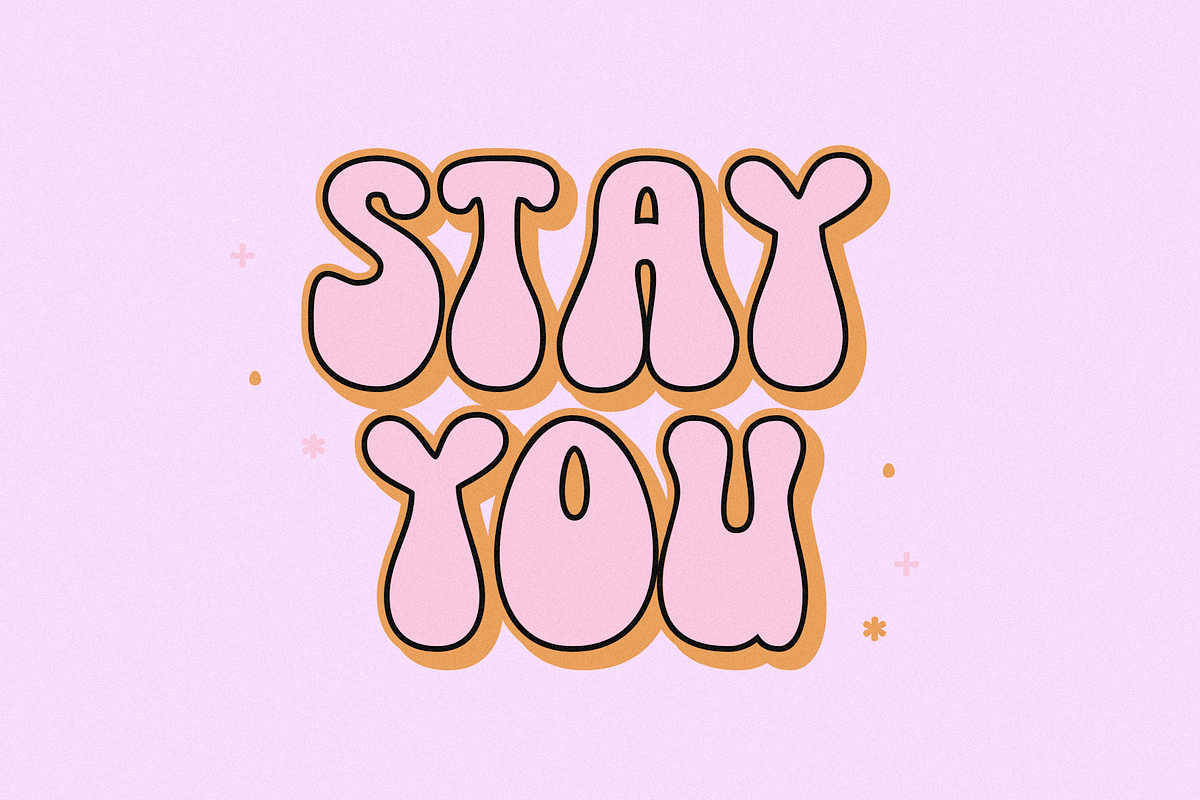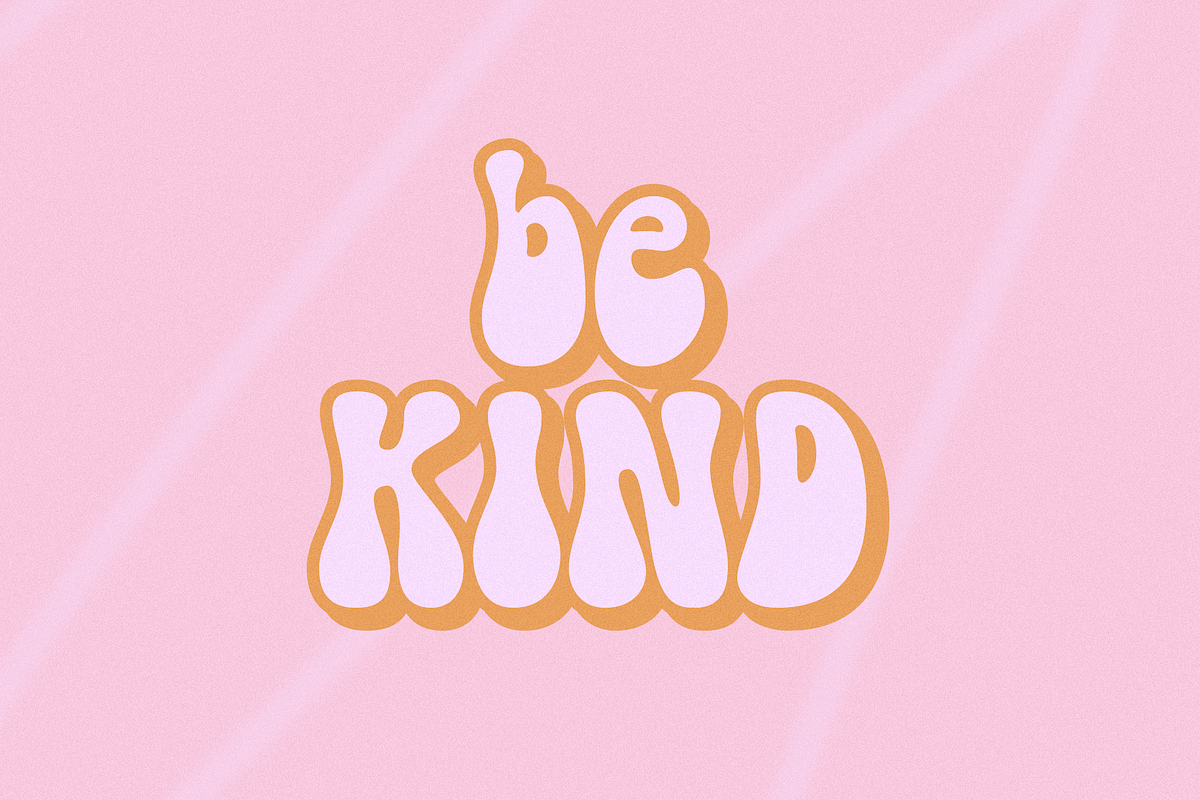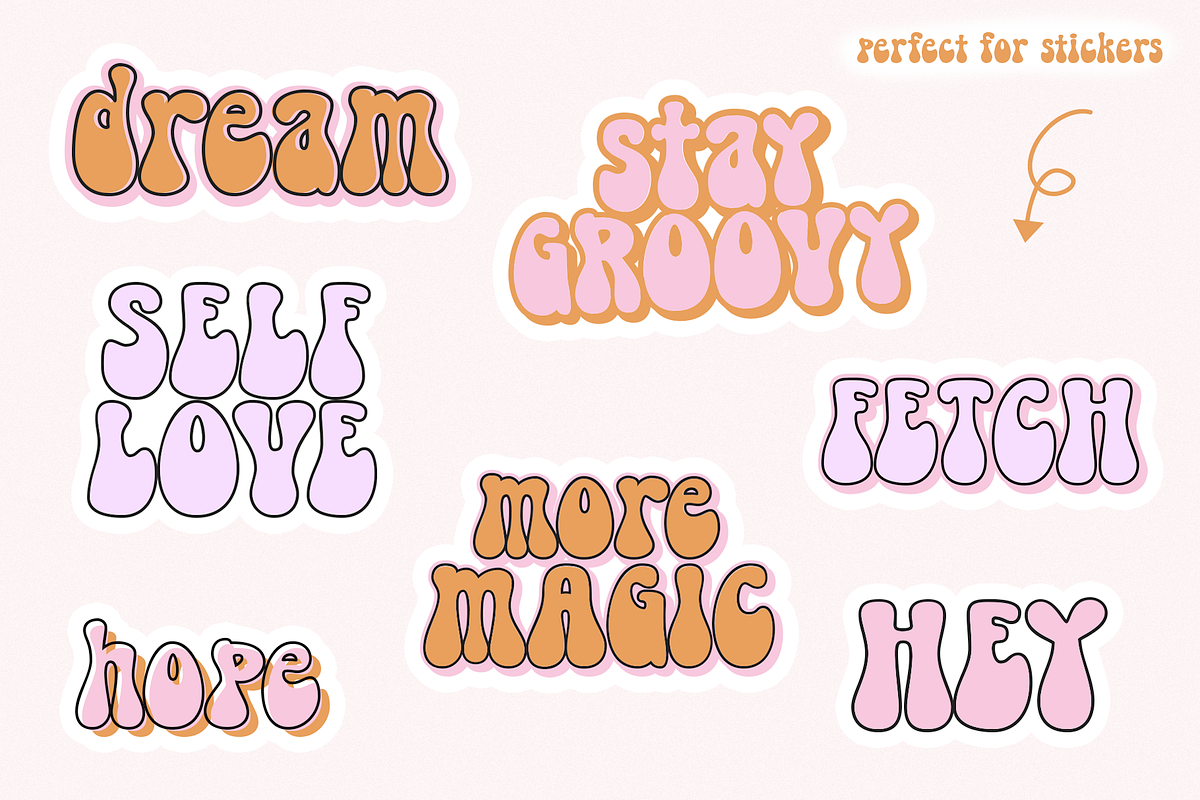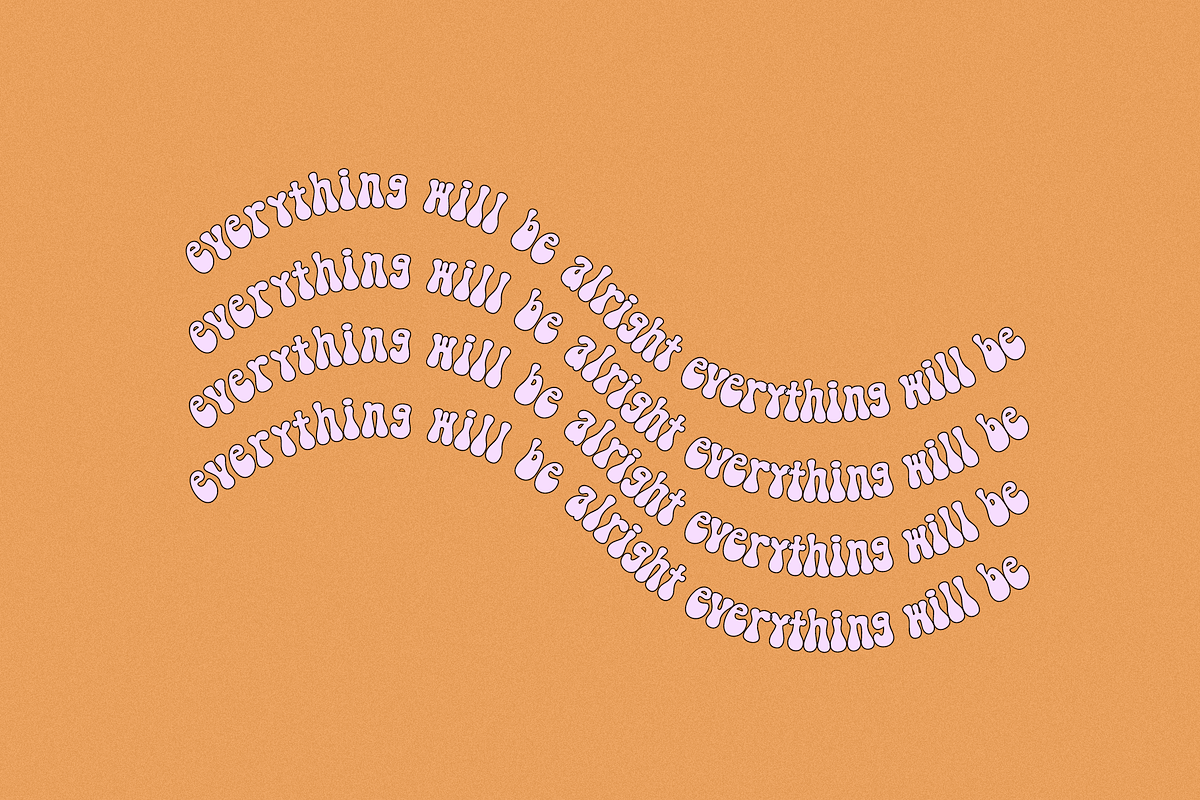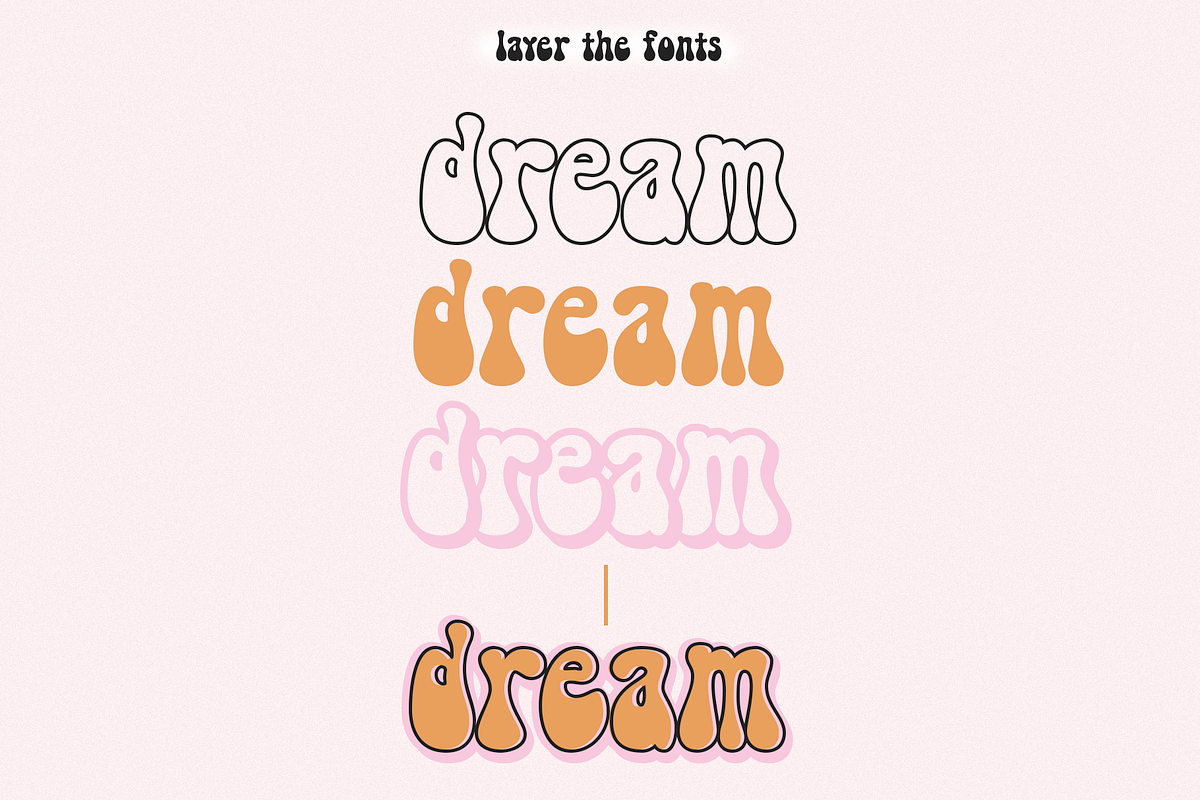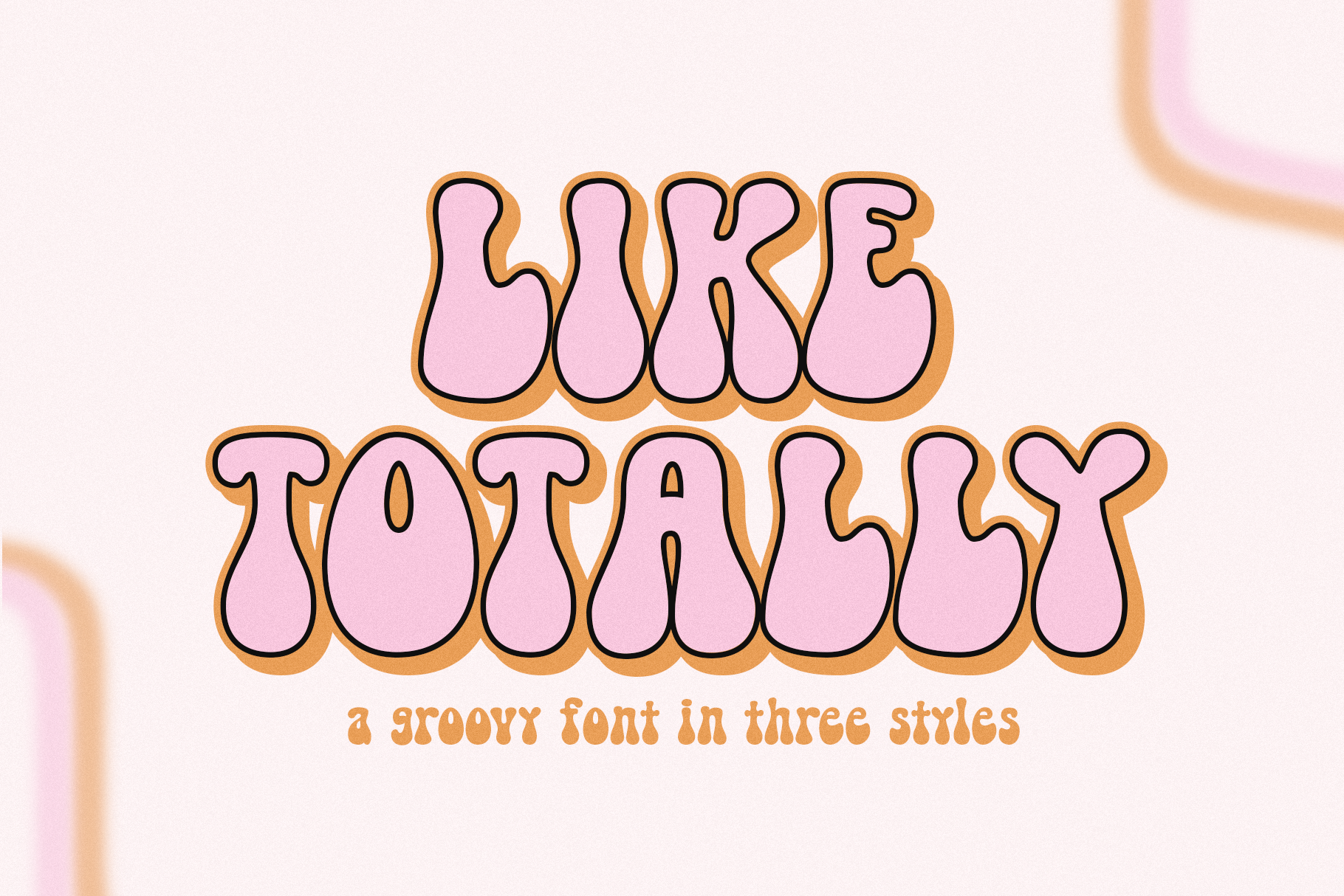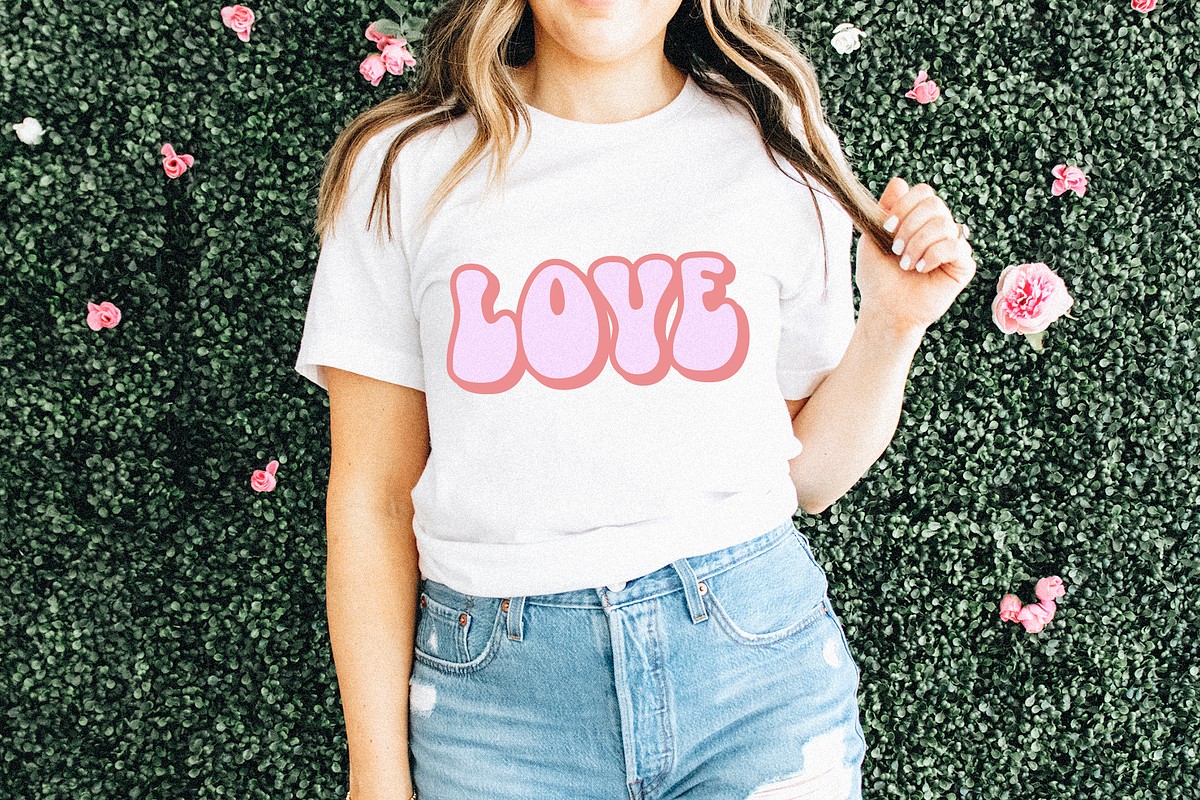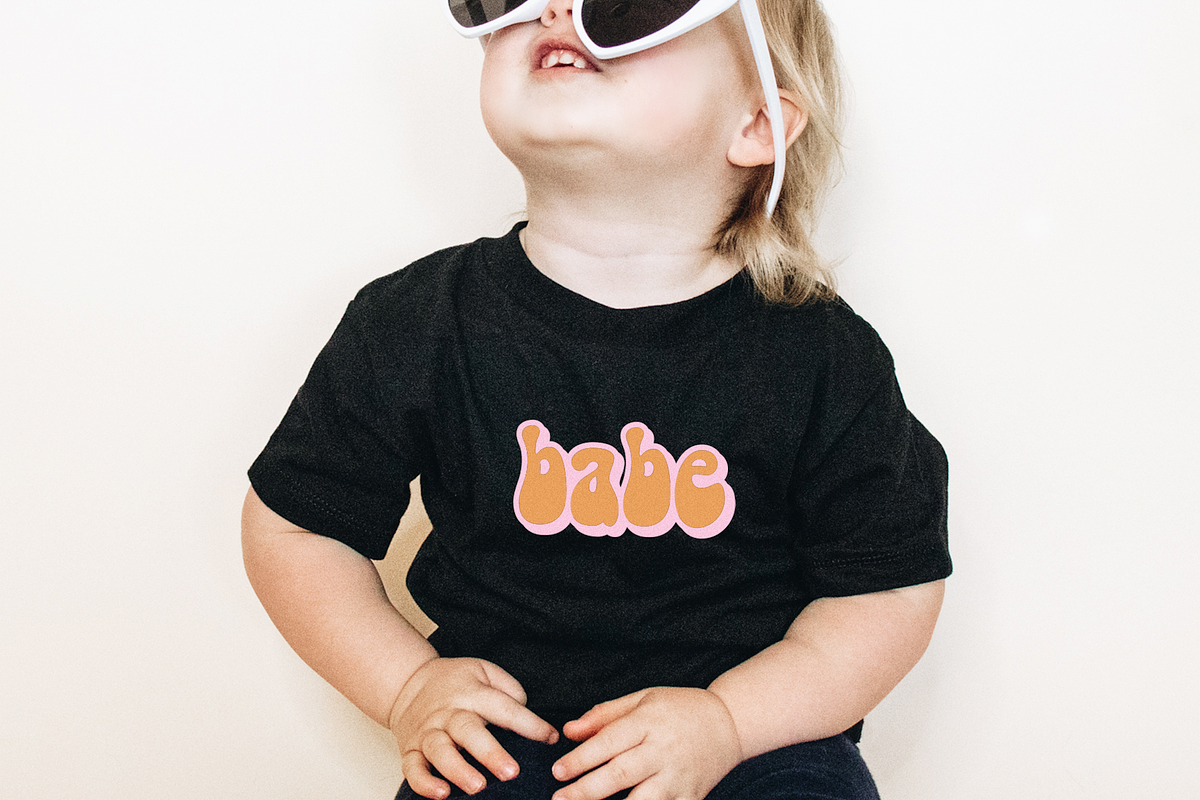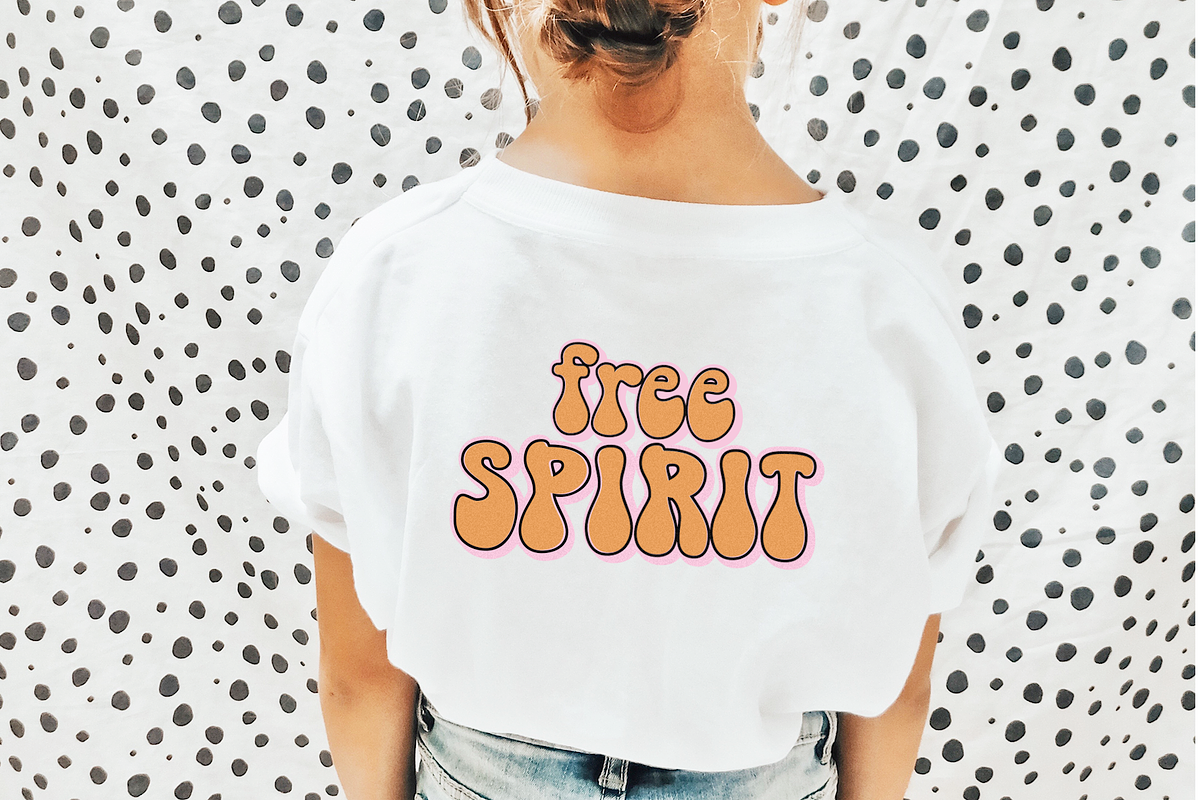
Like Totally | Retro Groovy Font
Like Totally is a groovy/retro handwritten font.
There are three different styles of fonts included. Layer these fonts to create fun and unique words and quotes!
This font is perfect for retro designs, procreate, branding, shirts, logos, procreate, stickers, cricut projects, instagram, social media and more!
- Like Totally Regular
- Like Totally Outline
- Like Totally Shadow